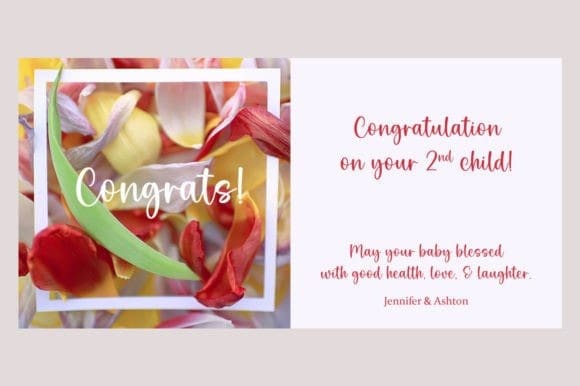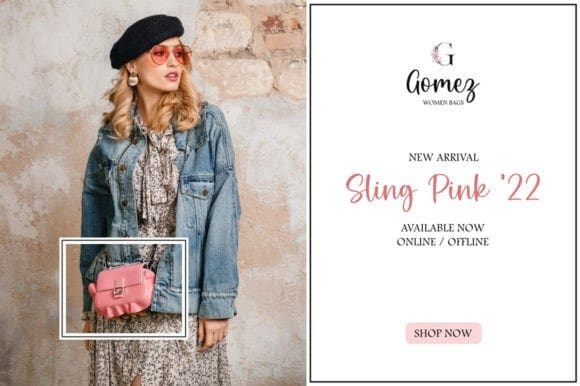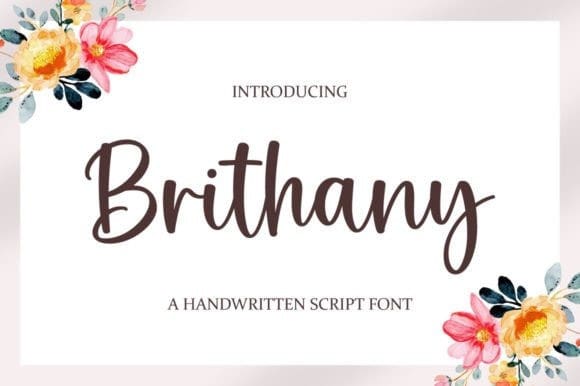
Brithany Script Font
Brithany Script Font is a lovely and timeless handwritten font. It is the best choice for creating eye-catching logos, branding, and quotes. Brithany is PUA-encoded, which means you can access all of the glyphs and swashes with ease!